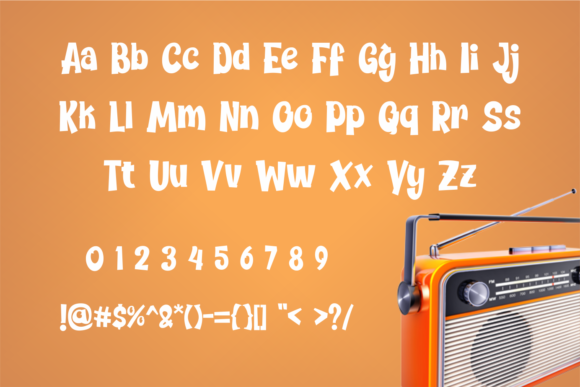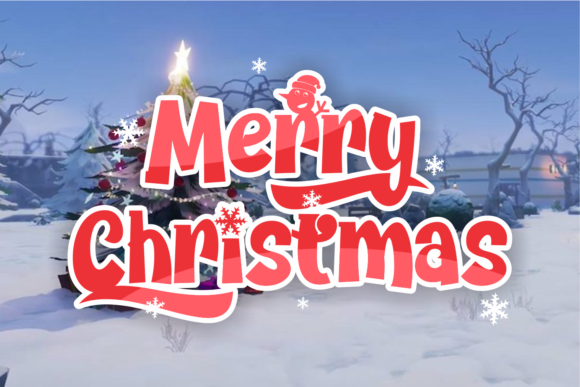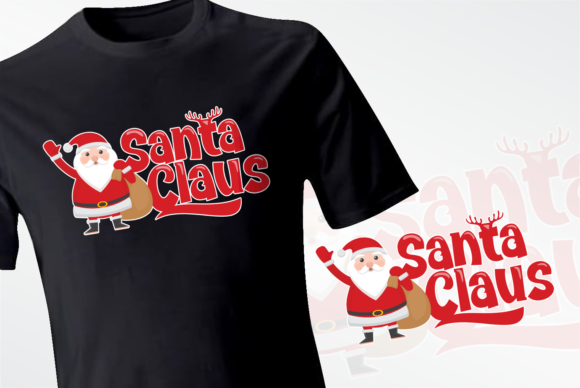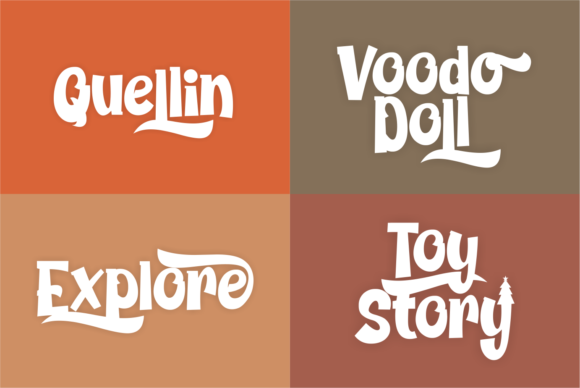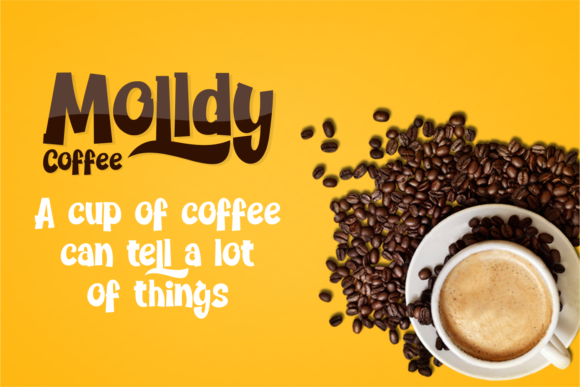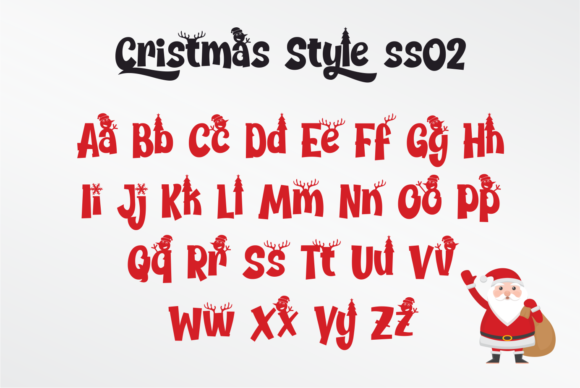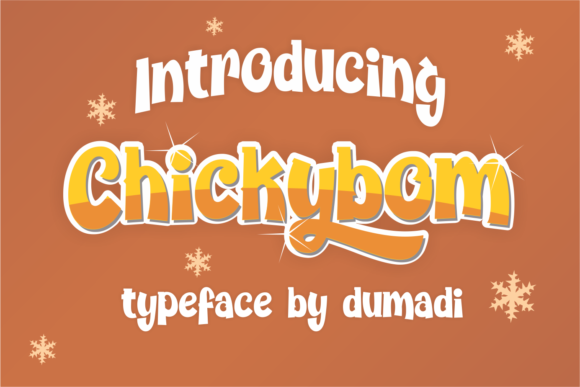
Introducing Chickybom Font: The Ultimate Display Font for All Seasons
Are you tired of using the same old fonts for your crafts and designs? Look no further than Chickybom Font, a cheerful, funky, and wild display font that’s perfect for all year-round use. Whether you’re creating Christmas decorations or summer crafts, Chickybom Font is the ideal choice to add a touch of fun and personality to your projects.
What Makes Chickybom Font So Special?
Chickybom Font is a unique and eye-catching display font that’s designed to make your designs stand out. Its cheerful and funky vibe makes it perfect for a wide range of projects, from holiday crafts to summer-themed designs. The font’s wild and playful style adds a touch of whimsy to any project, making it ideal for crafters and designers who want to create something truly special.
Perfect for Christmas and Holiday Crafts
Chickybom Font is a great choice for Christmas and holiday crafts, adding a festive touch to your designs. Use it to create fun and colorful holiday cards, gift tags, and decorations that are sure to impress. The font’s cheerful and playful style is perfect for creating a joyful and celebratory atmosphere, making it ideal for holiday-themed projects.
Some ideas for using Chickybom Font in Christmas and holiday crafts include:
- Creating holiday cards and gift tags with a fun and playful twist
- Designing festive decorations, such as garlands and banners
- Making holiday-themed scrapbook pages and photo albums
But It’s Not Just for Holidays – Chickybom Font is Perfect for Summer Crafts Too!
While Chickybom Font is perfect for holiday crafts, it’s not just limited to the holiday season. The font’s cheerful and playful style makes it ideal for summer crafts and designs, adding a fun and carefree touch to your projects.
Some ideas for using Chickybom Font in summer crafts include:
- Creating fun and colorful summer-themed signs and banners
- Designing playful and eye-catching party invitations and decorations
- Making summer-themed scrapbook pages and photo albums
Why Choose Chickybom Font?
So why choose Chickybom Font for your crafts and designs? Here are just a few reasons:
- Unique and eye-catching style: Chickybom Font has a unique and eye-catching style that’s sure to make your designs stand out.
- Versatile: The font is perfect for a wide range of projects, from holiday crafts to summer designs.
- Fun and playful vibe: The font’s fun and playful vibe adds a touch of whimsy to any project.
Tips for Using Chickybom Font
Here are a few tips for using Chickybom Font in your crafts and designs:
- Experiment with different colors: Chickybom Font looks great in a wide range of colors, so don’t be afraid to experiment and find the perfect hue for your project.
- Use it with other fonts: Chickybom Font pairs well with other fonts, so try using it with a more traditional font to create a fun and playful contrast.
- Add some texture: Adding texture to your design can really make Chickybom Font pop – try using a textured background or adding some fun and playful graphics.
| Font Name | Chickybom Font |
| Author | DUMADI |
Chickybom Font is a unique and eye-catching display font that’s perfect for all year-round use. Its cheerful, funky, and wild style makes it ideal for a wide range of projects, from holiday crafts to summer designs. With its easy-to-use installation and versatile style, Chickybom Font is a great choice for crafters and designers who want to add a touch of fun and personality to their projects. So why not give it a try and see what amazing creations you can come up with?